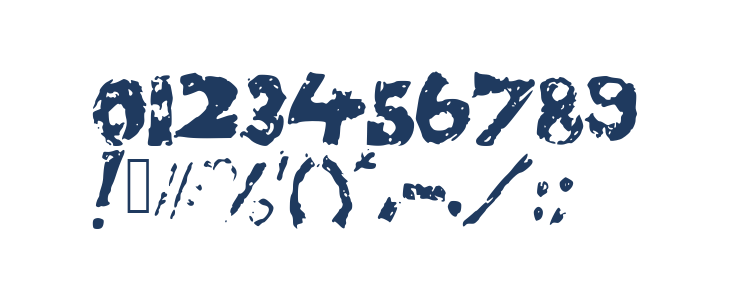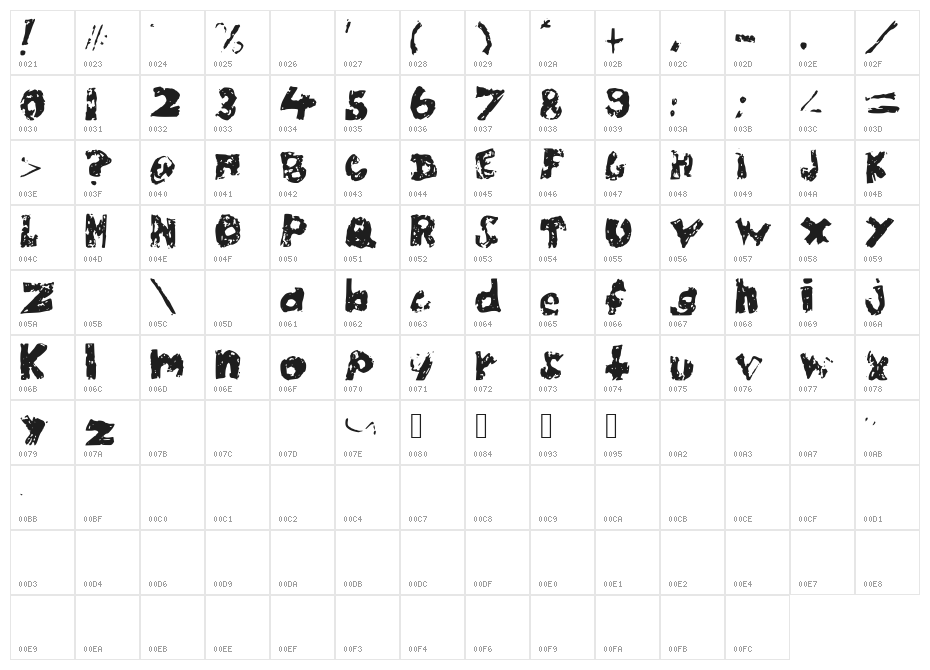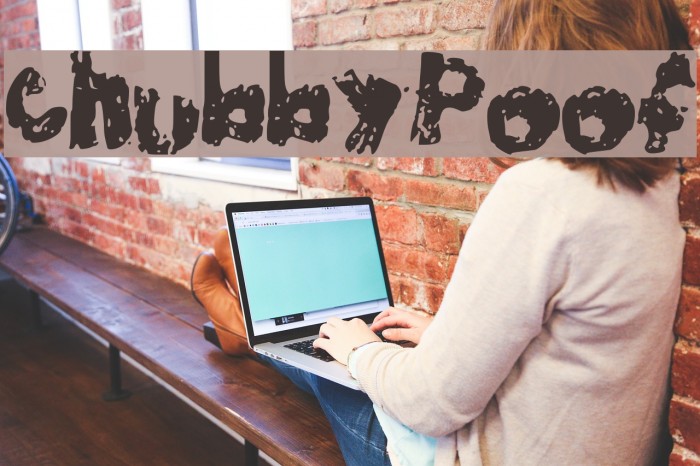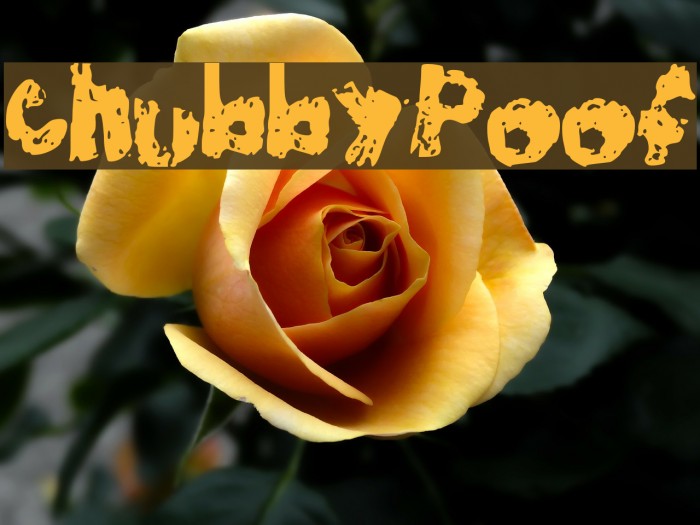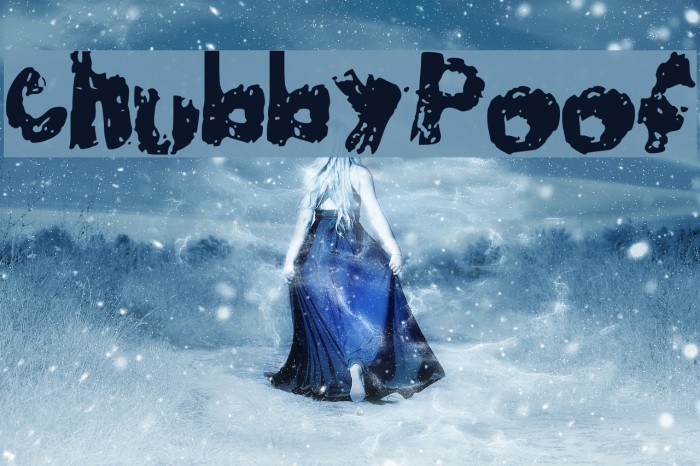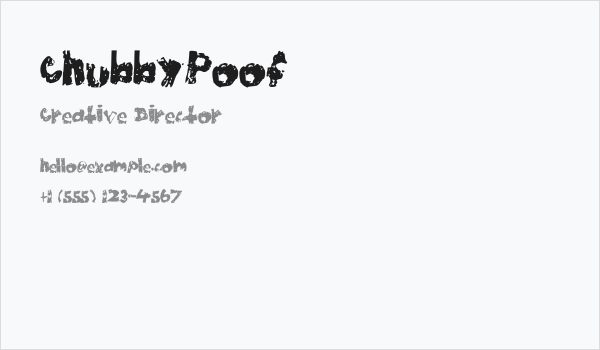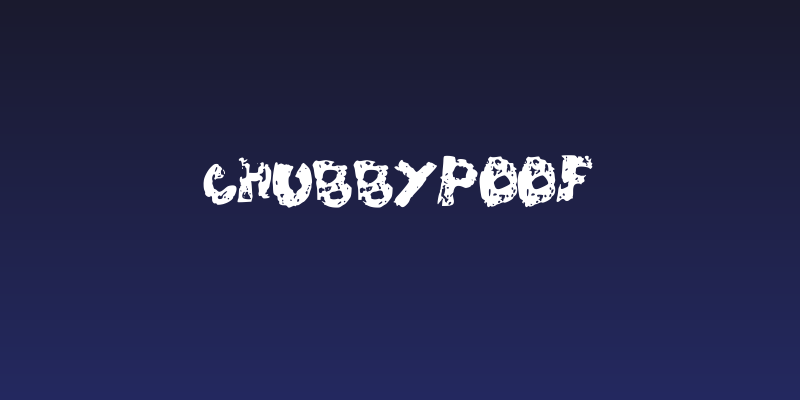
ChubbyPoof Font
ChubbyPoof Description
This font features a bold and distressed appearance, with each character exhibiting a rough, textured surface that gives it a grungy, chaotic feel. The letters are irregular in shape, with uneven edges and a hand-drawn quality that adds to its unique style. The uppercase and lowercase letters maintain a consistent level of distortion, creating a cohesive look throughout. Numbers and special characters follow the same design principles, ensuring uniformity across all glyphs. This font is ideal for projects that require a bold statement or an edgy, artistic touch.
| Overall Style | Grunge, Artistic |
| Proposed Projects | Ideal for album covers, posters, streetwear branding, or any project needing an edgy, artistic touch. |